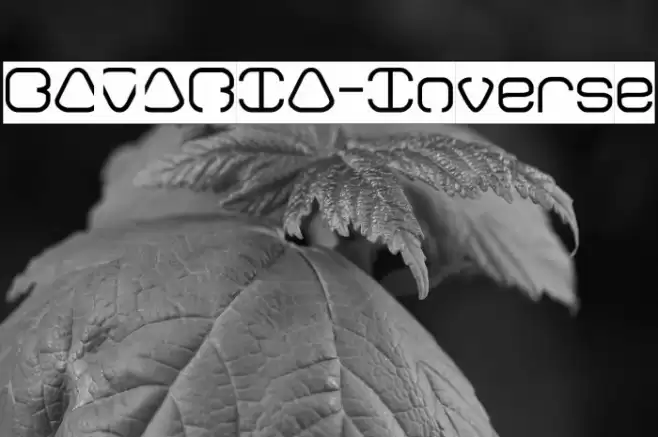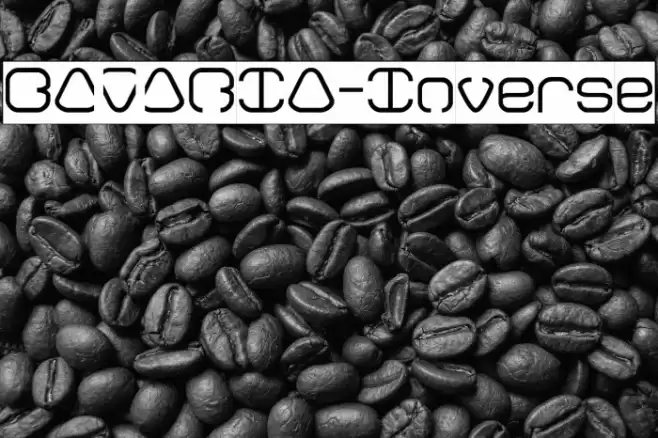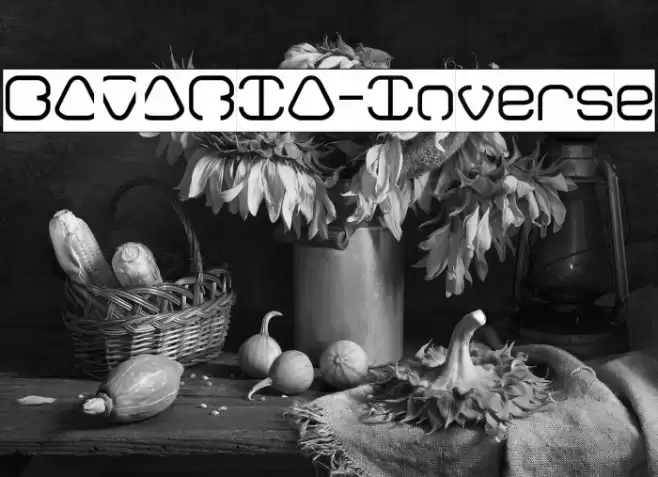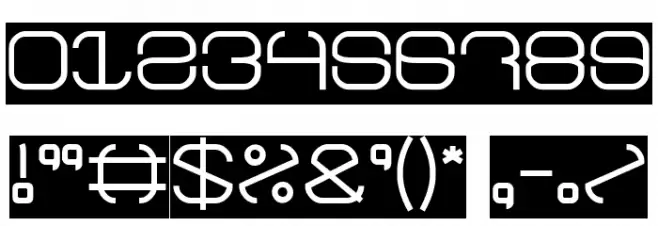
BAVARIA-Inverse Font
BAVARIA-Inverse Description
This font features a unique and modern design with a futuristic twist. The characters are enclosed within a rectangular frame, giving them a distinct and structured appearance. The strokes are consistent in thickness, providing a uniform look across all characters. The design incorporates geometric shapes and angles, creating a sense of movement and dynamism. The font's style is both bold and clean, making it suitable for projects that require a contemporary and edgy aesthetic. Its distinctive look is ideal for capturing attention and making a statement.
A modern, geometric font with a futuristic and structured design from Uncategorized fonts.
- Proposed Projects: Ideal for branding, posters, album covers, and digital media projects that require a modern and eye-catching typeface.